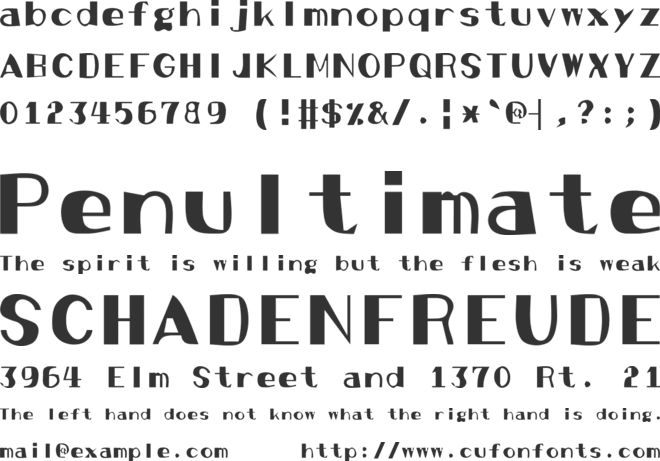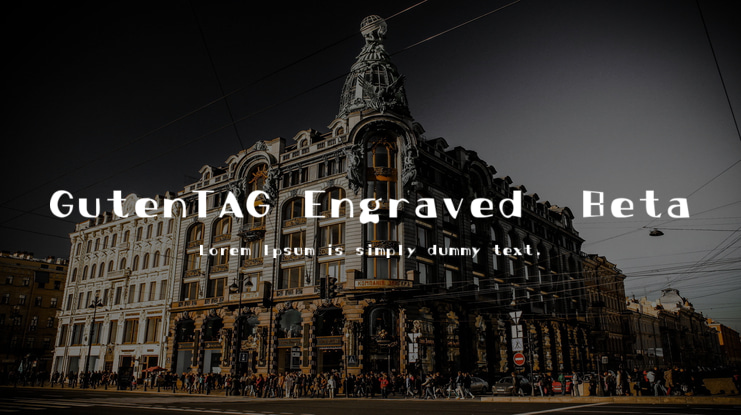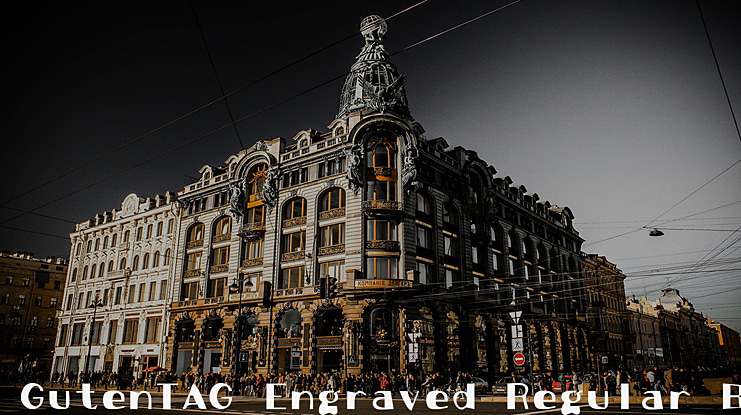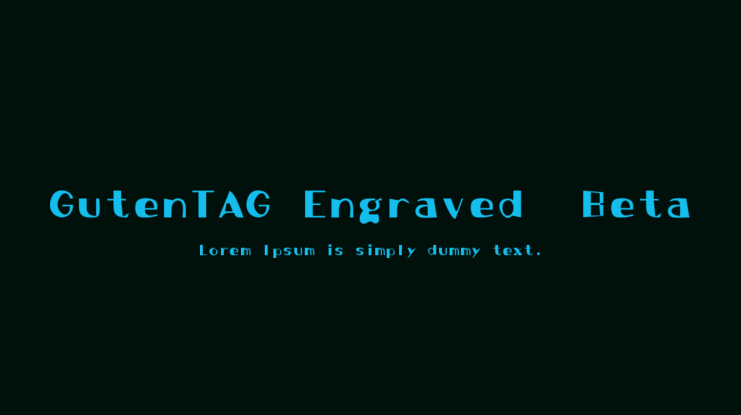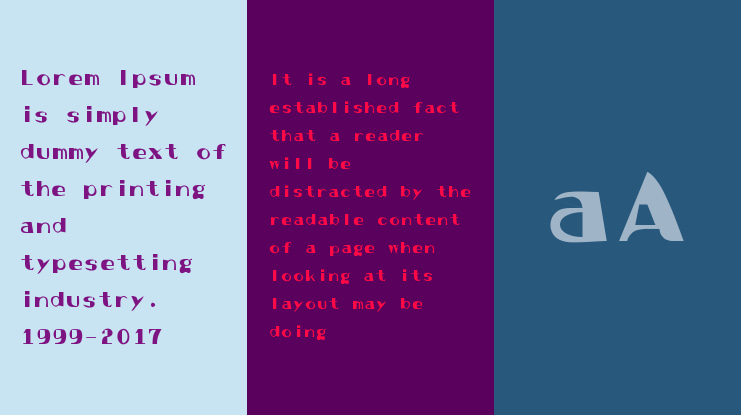
This is an automaticaly gereated font from Edytor Tekstów TAG, an old Polish DOS Text Editor. It was created to replicate the look-and-feel of the 1990s home-made printed leaflets. Still requires manual adjustments, so currently at Beta stage.